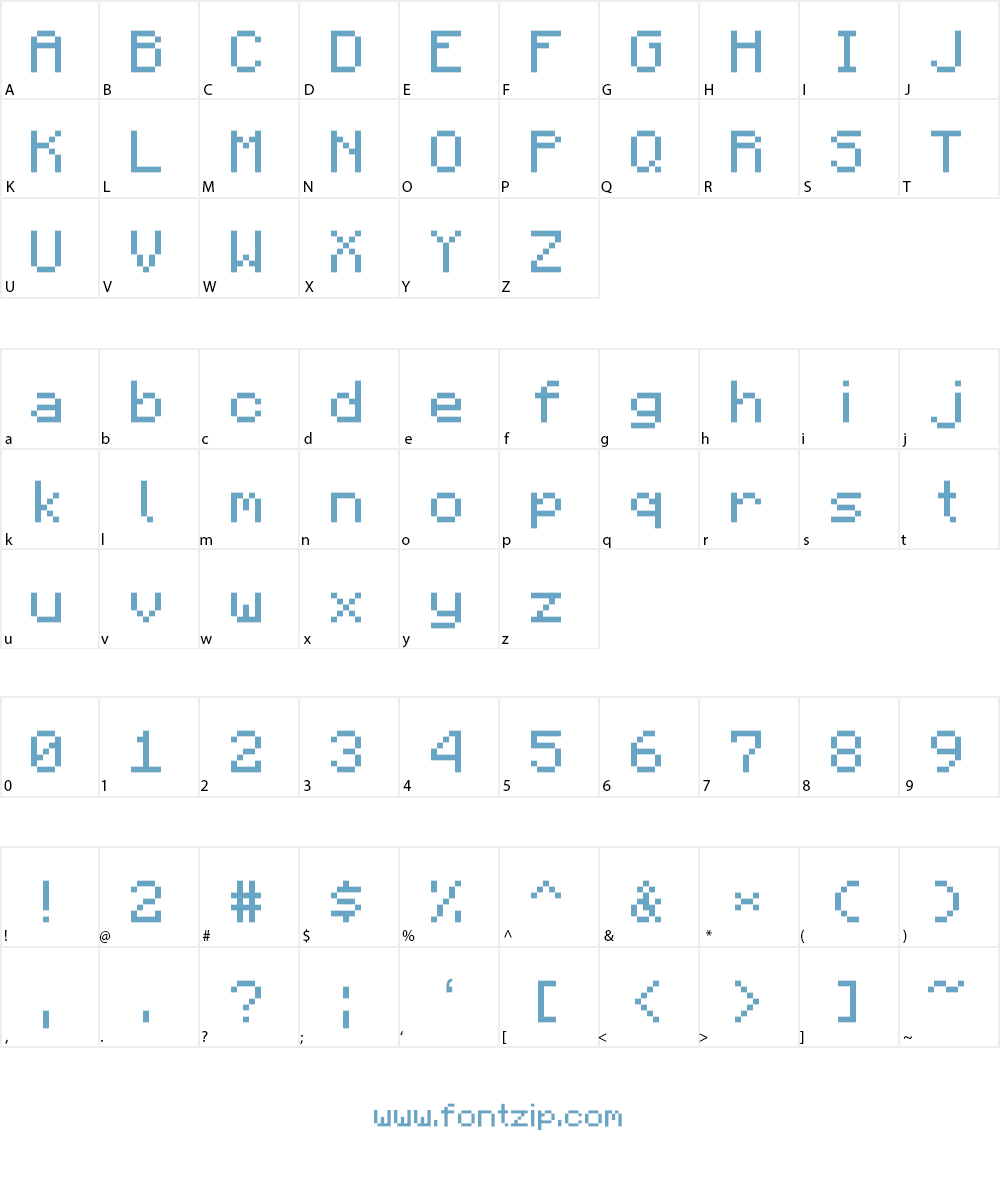
This the most accurate free Minecraft font to date, with all glyphs personally checked and made individually. This font is based off Minecraft's original ASCII charts and has a few hints from the Gamepedia webfont.
Includes:
- Minecraft Regular
- Minecraft Italic
- Minecraft Bold
- Minecraft Bold Italic
The additional styles are realistic, not cheap bad imitations.
This is a better, more accurate alternative of the existing replica, "Minecraftia" and may be used in your projects. Have fun!